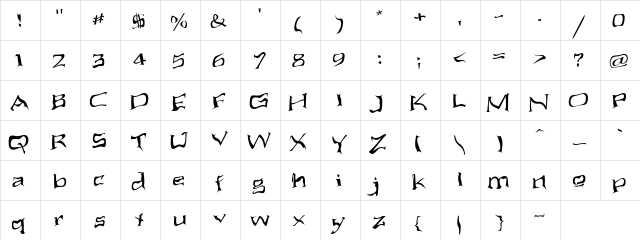
Species Regular
Design Context for Species Typeface
Species is a composed and adaptable typeface that performs quietly and consistently across a wide range of design contexts.